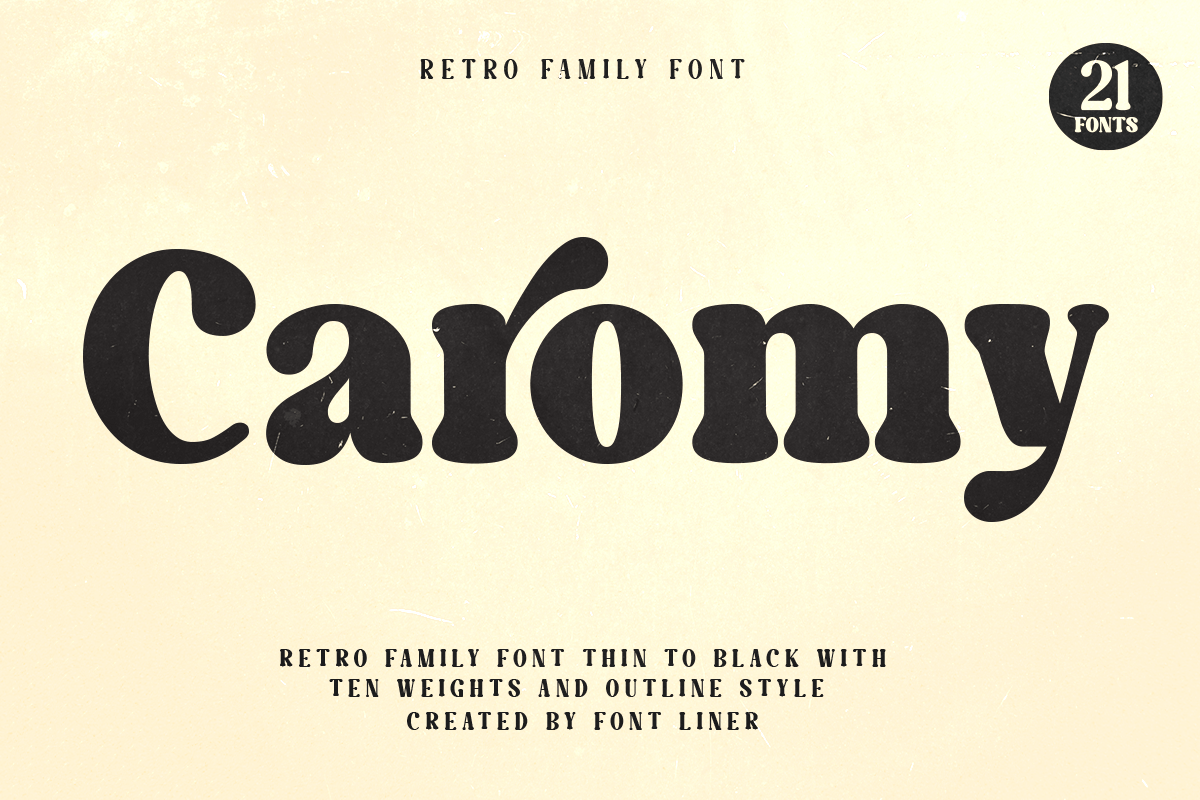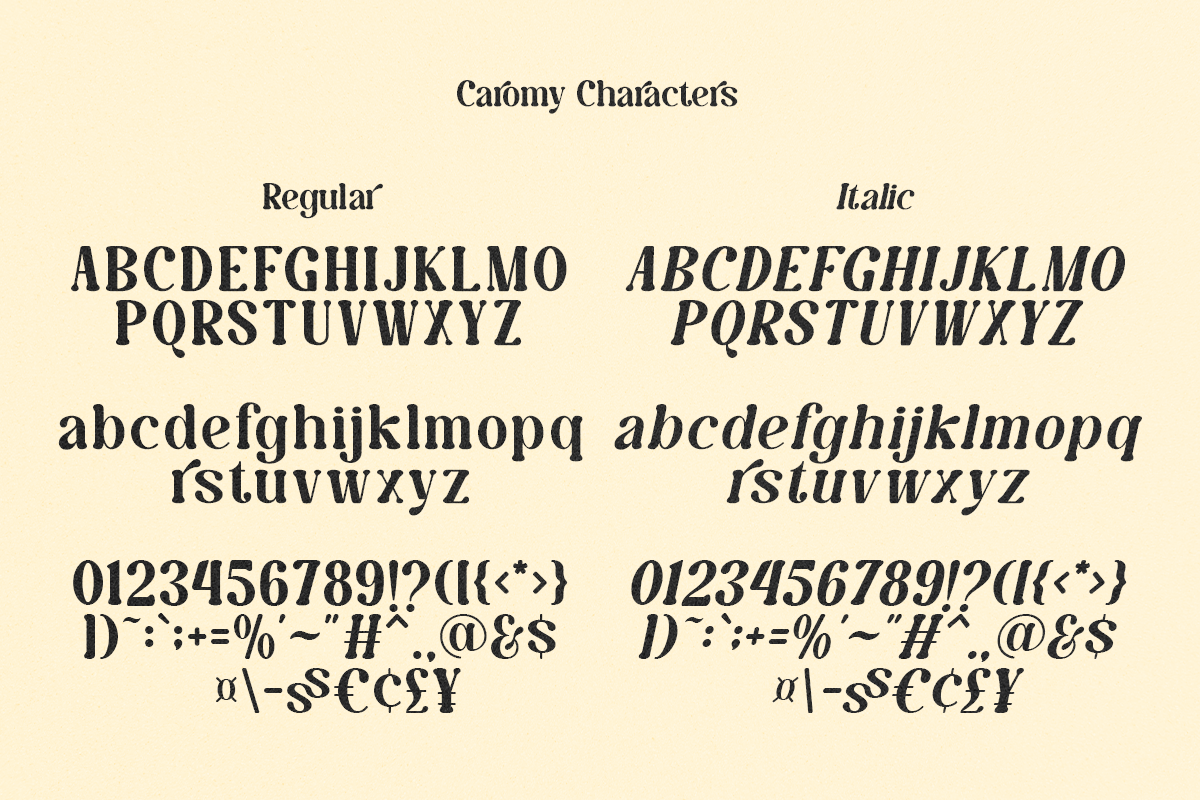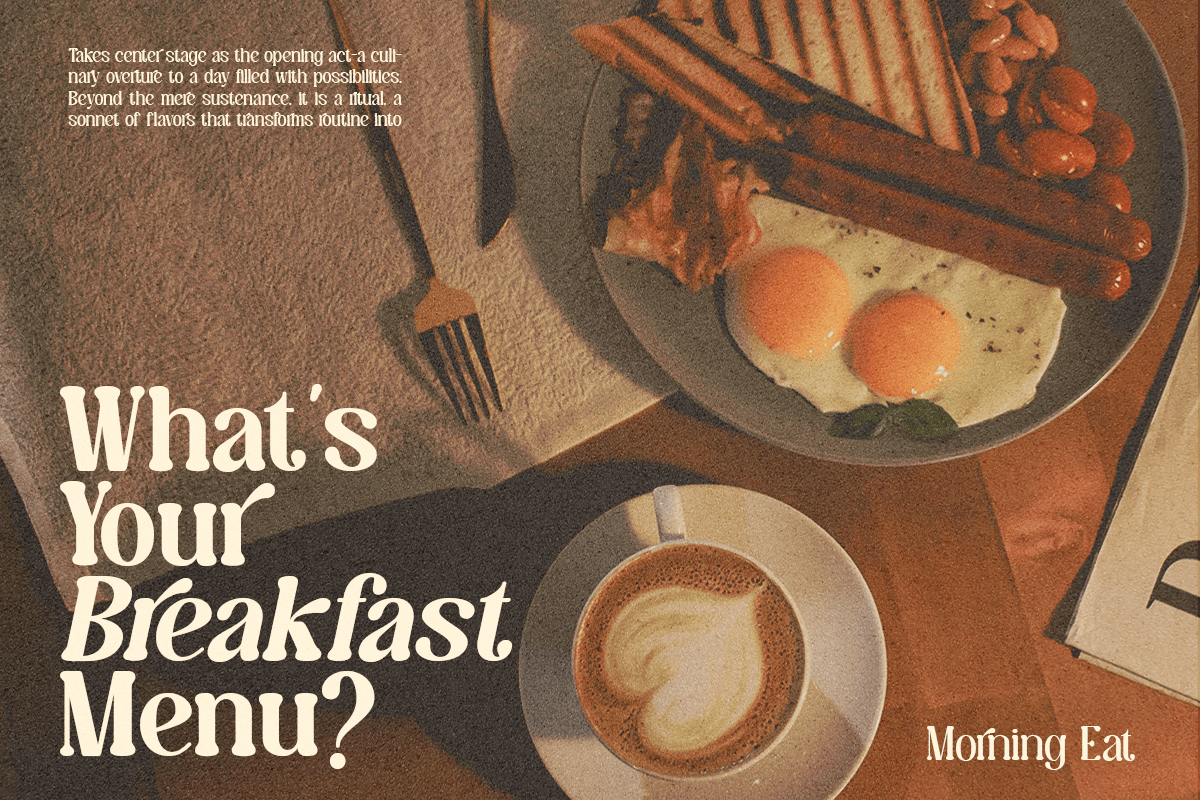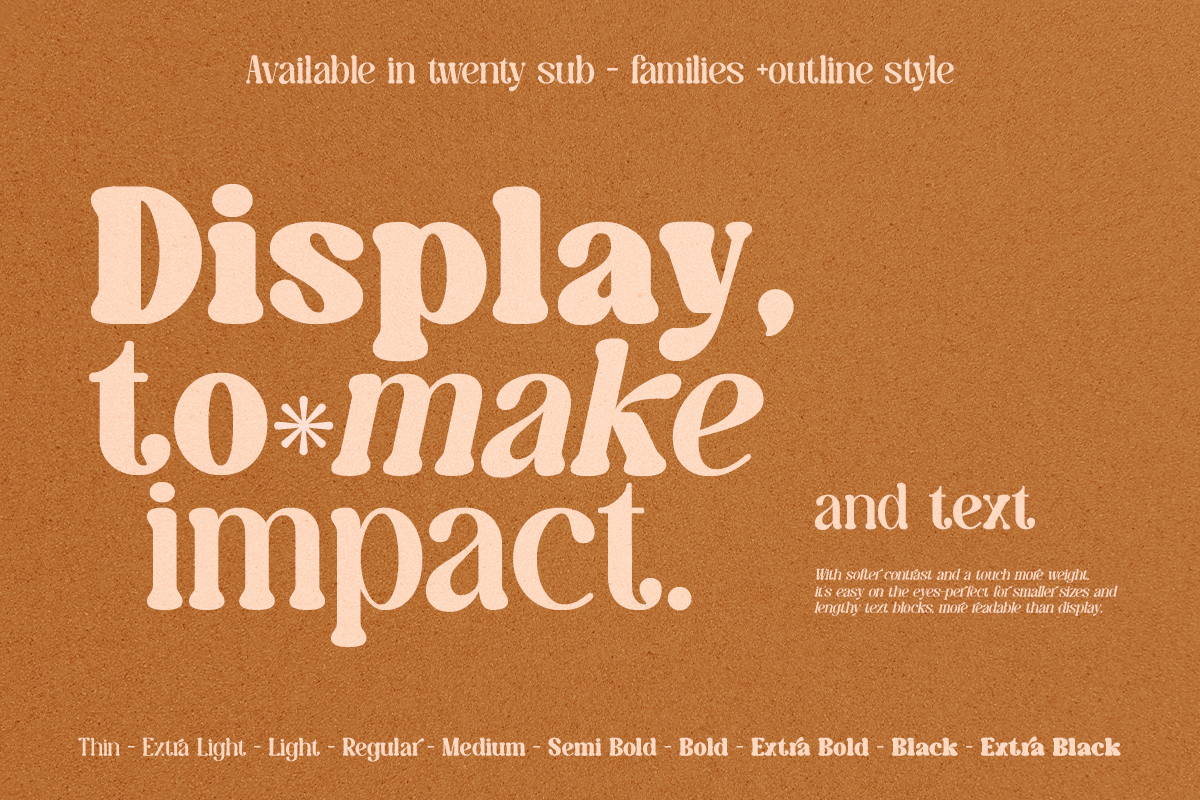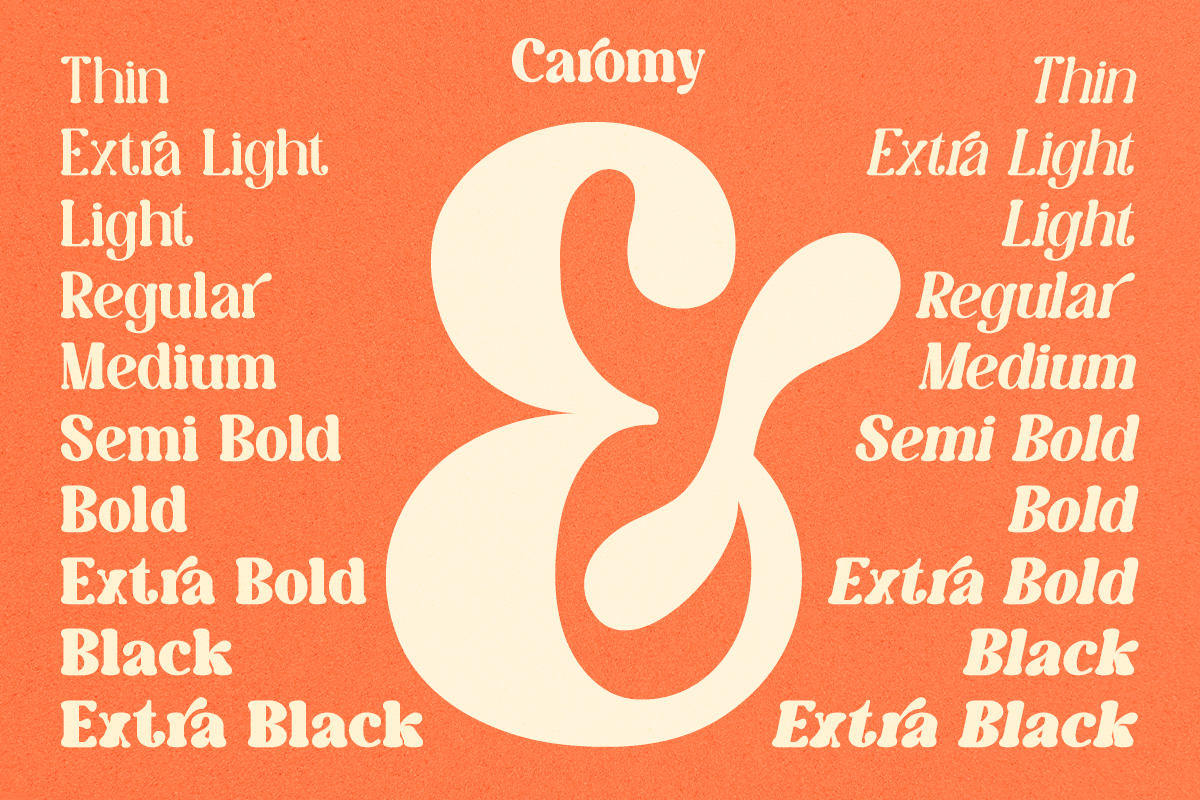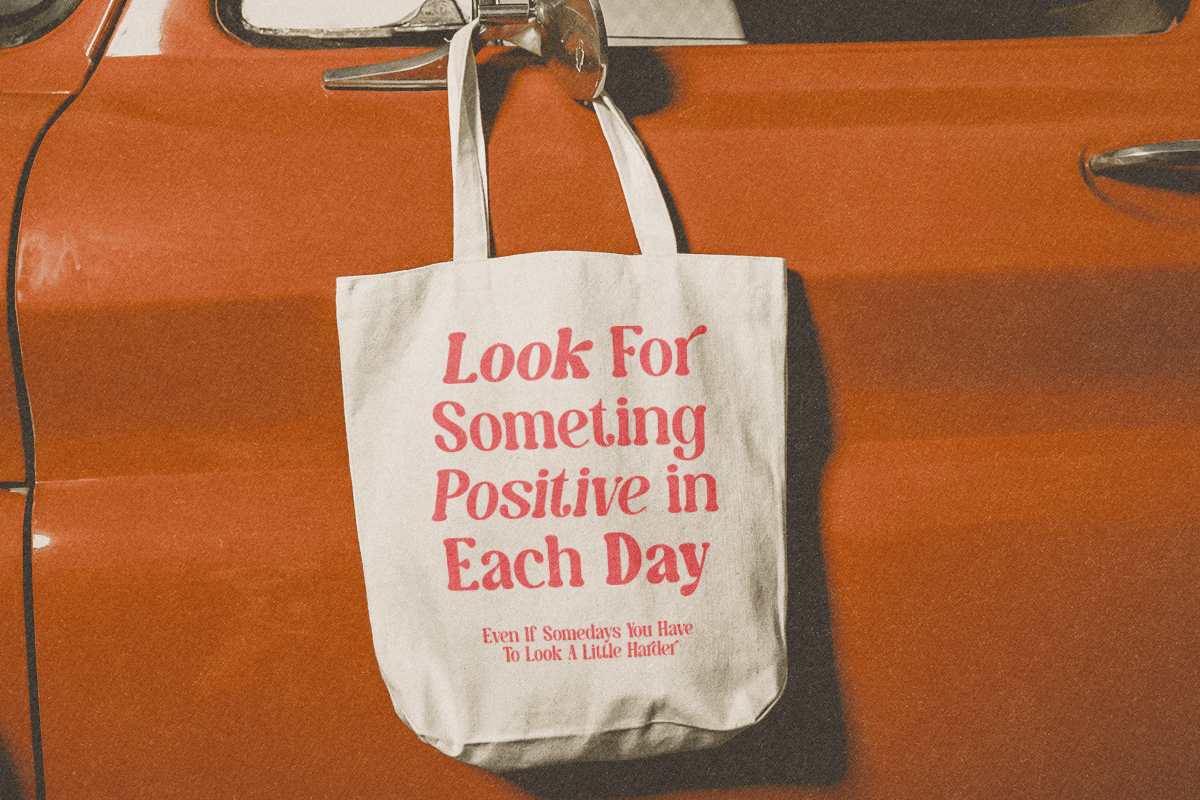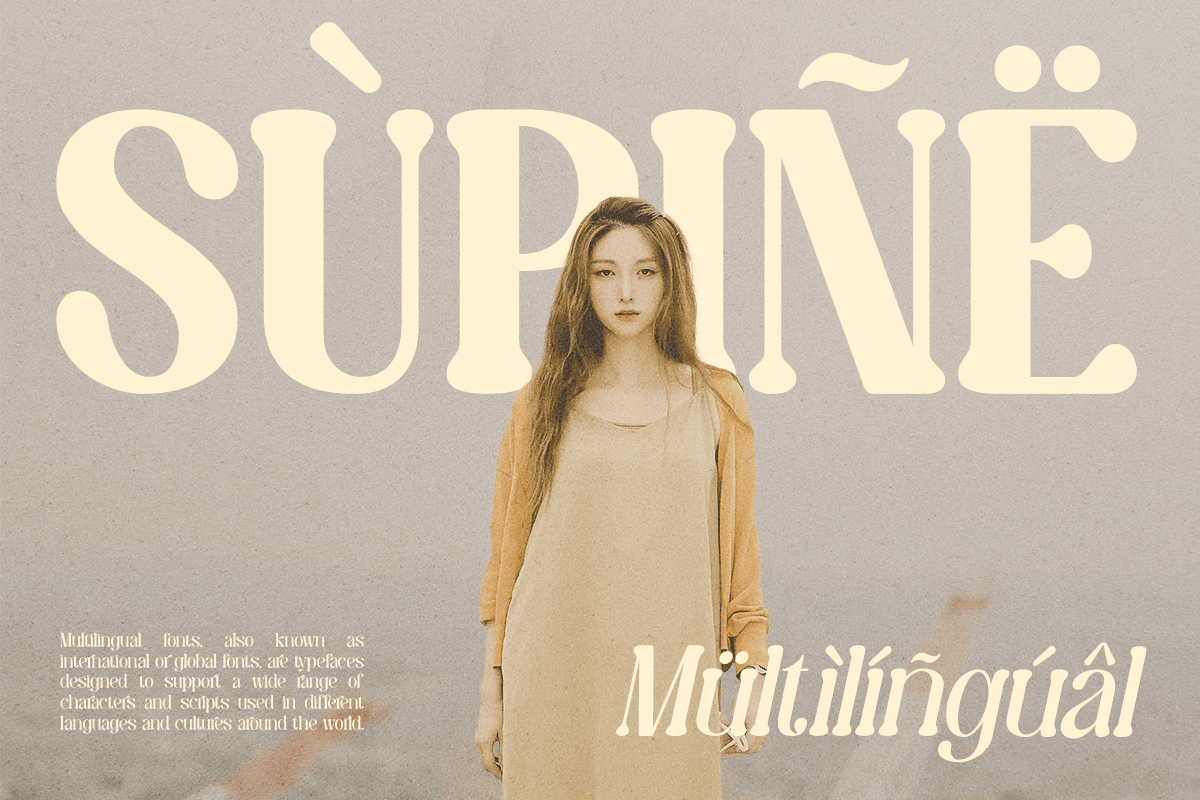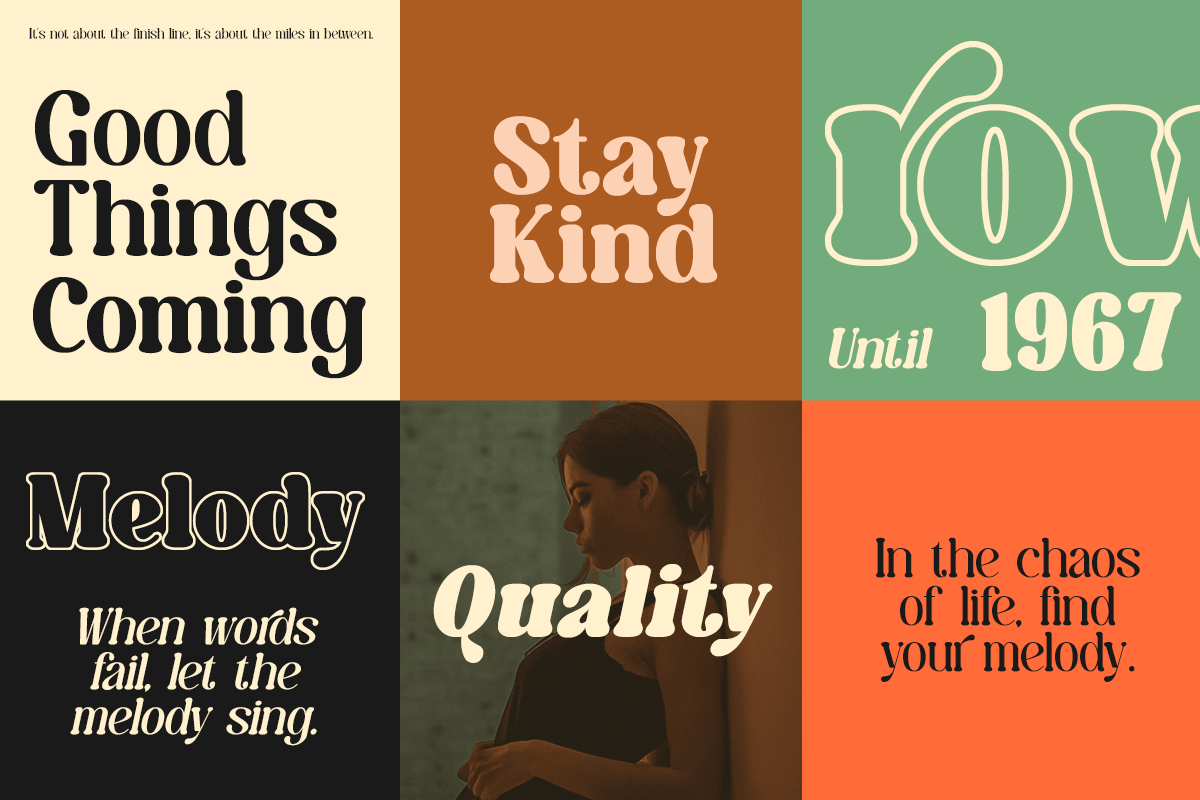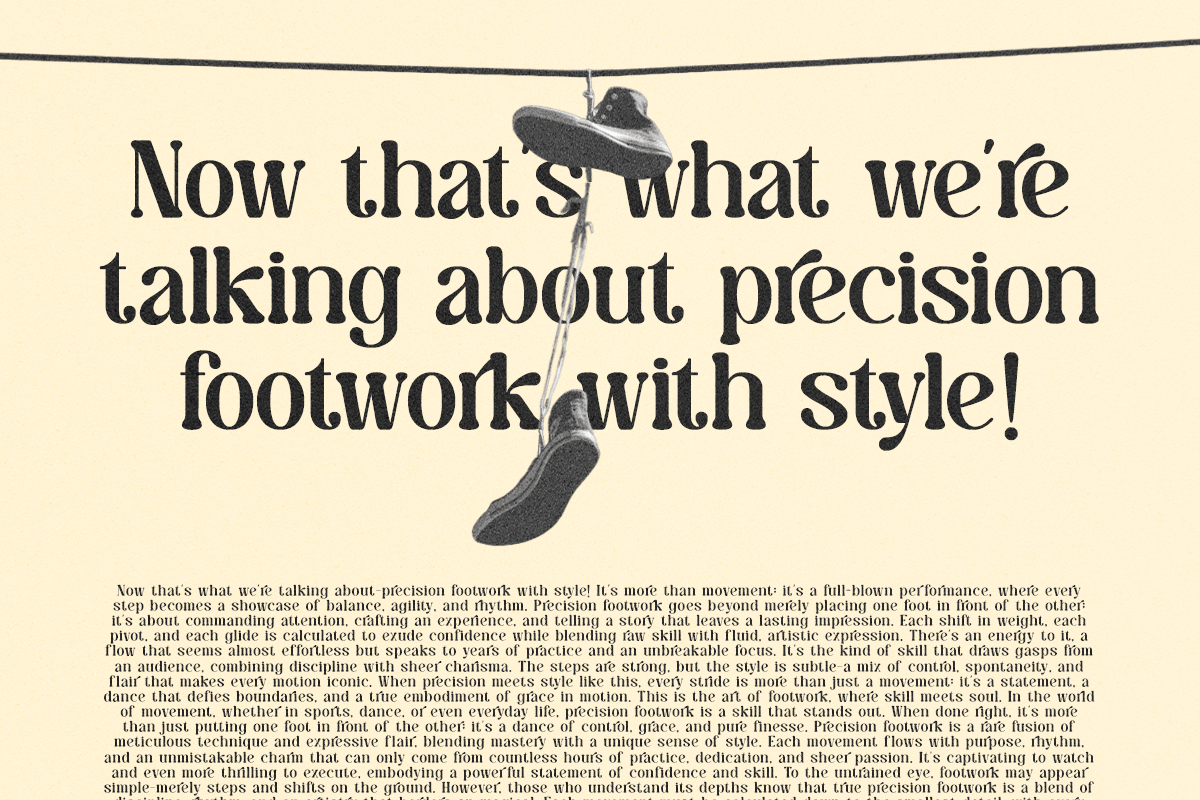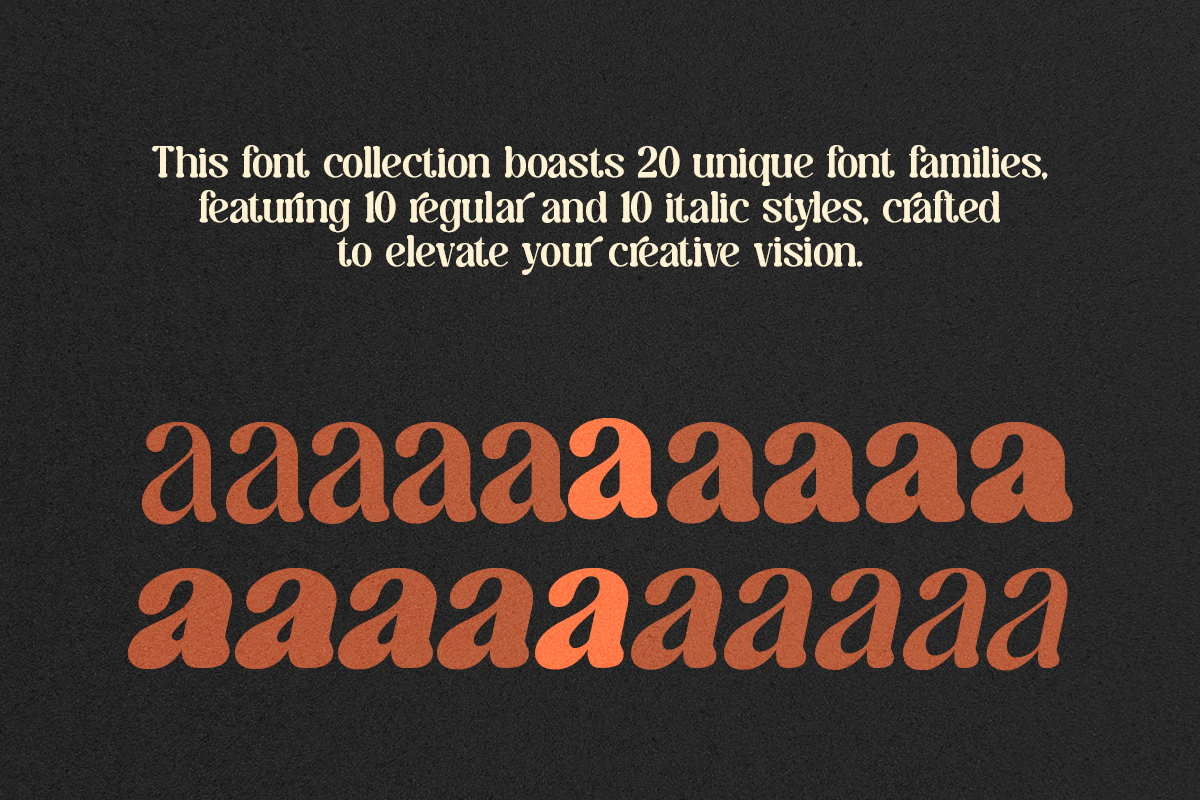
Caromy – Retro Family Font
Caromy is a versatile retro font family that combines timeless vintage aesthetics with modern functionality. Featuring 21 carefully crafted styles ranging from Thin to Extra Black, plus matching italics, Caromy delivers exceptional flexibility for every creative project. Its soft curves, bold personality, and refined retro character create typography that feels nostalgic while remaining clean, professional, and highly readable.
Designed for branding, editorial design, logos, packaging, advertising, magazines, posters, websites, social media, fashion, cafés, restaurants, lifestyle brands, and product packaging, Caromy adapts effortlessly from elegant body text to powerful display headlines. Whether you’re building a vintage-inspired identity or a contemporary visual system, this extensive font family provides consistent style across every weight and application.
Caromy includes 21 font styles, uppercase and lowercase characters, multilingual support, numerals, punctuation, symbols, and extensive language coverage for professional typography. From corporate branding and premium packaging to editorial layouts and creative marketing campaigns, Caromy is the ideal retro family font for designers seeking versatility, performance, and timeless visual appeal.